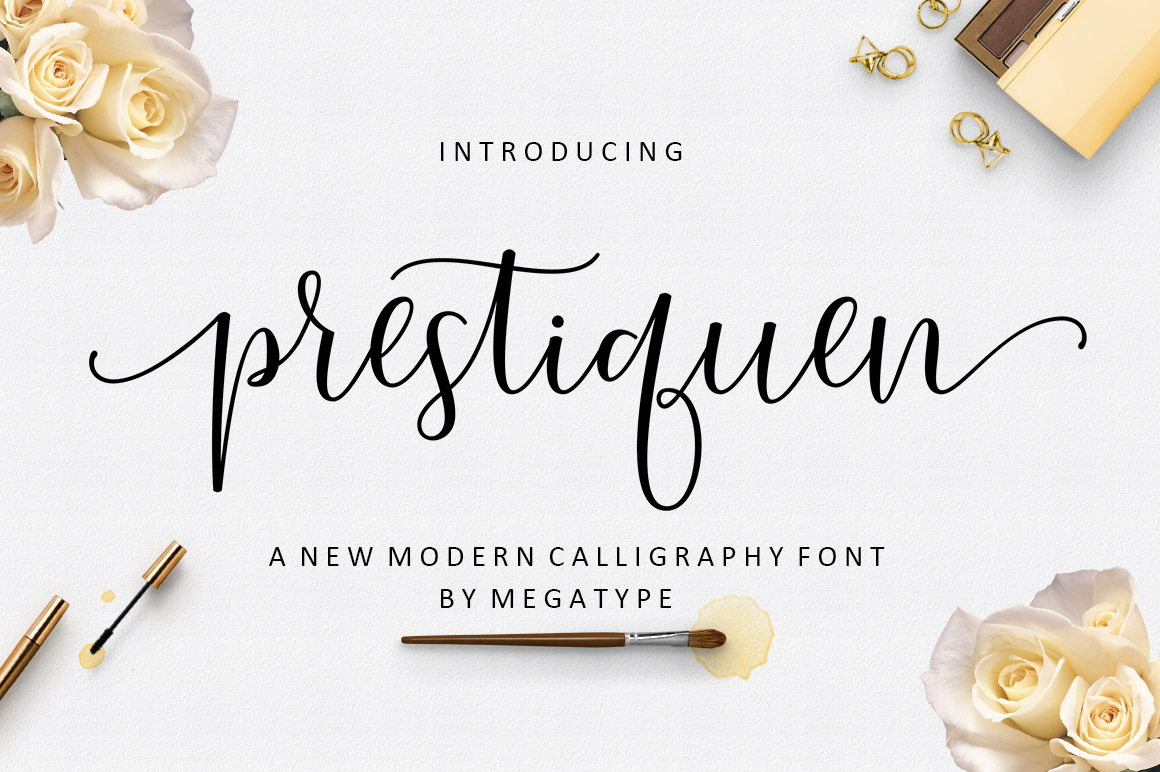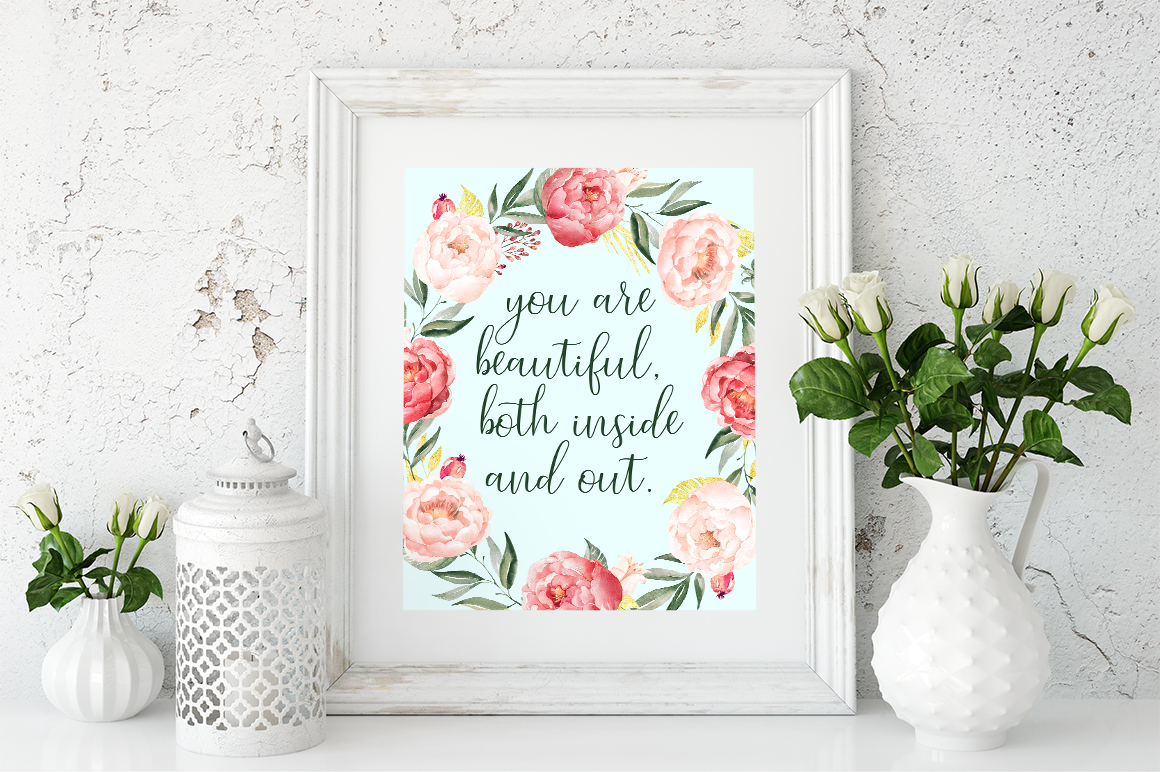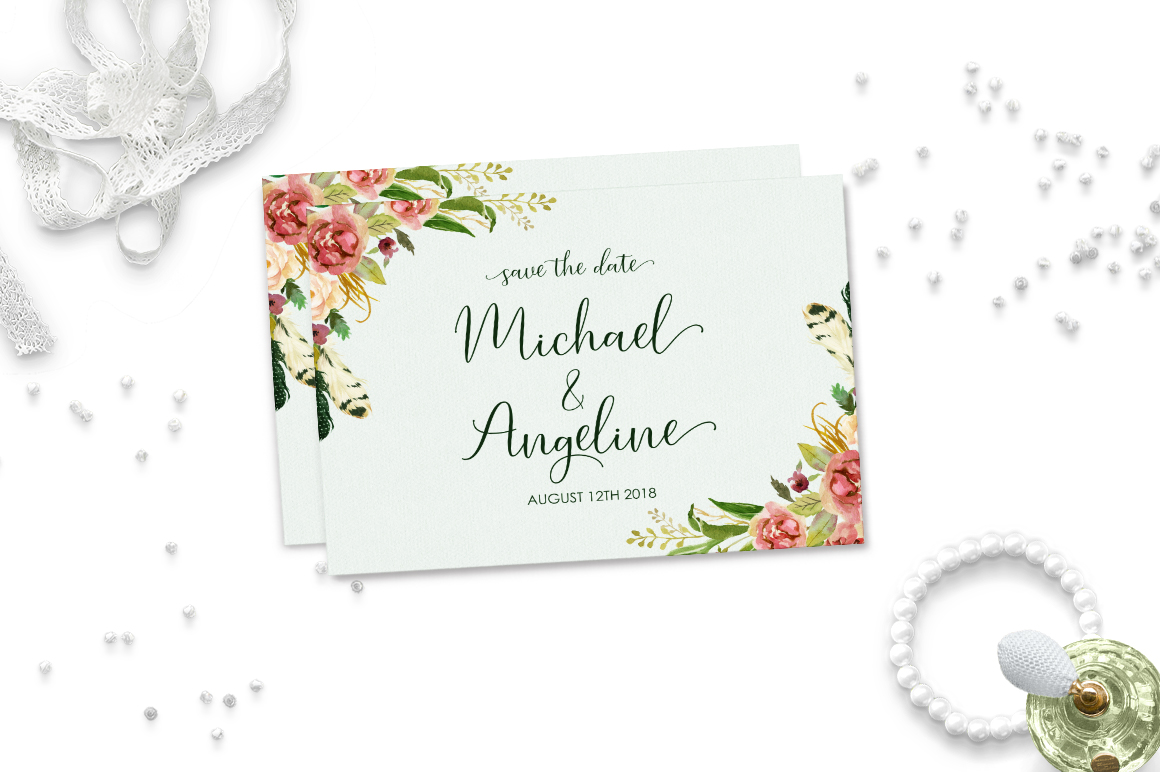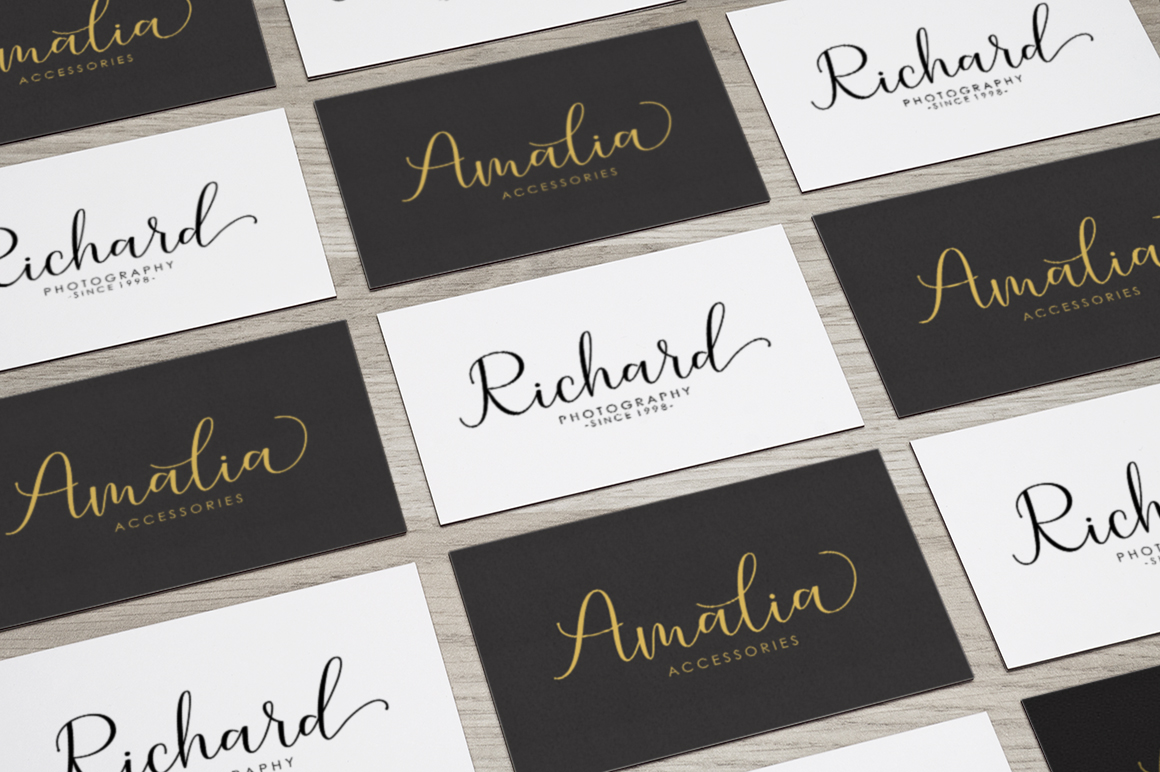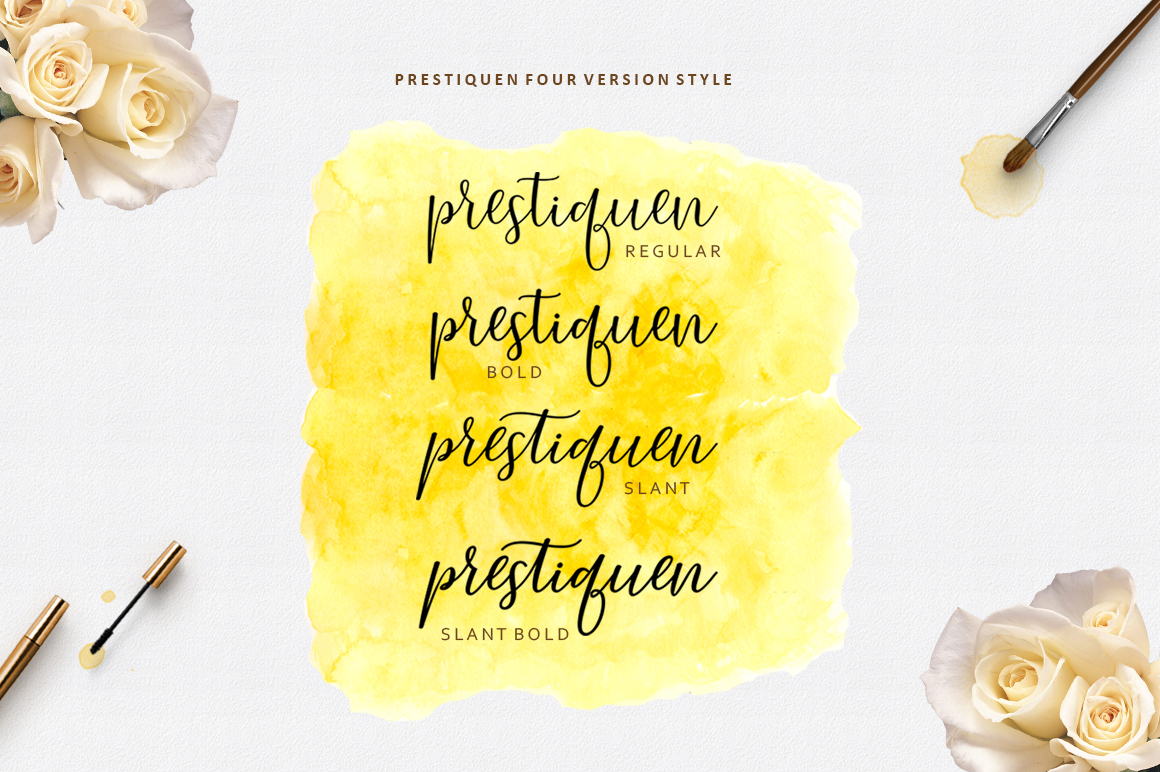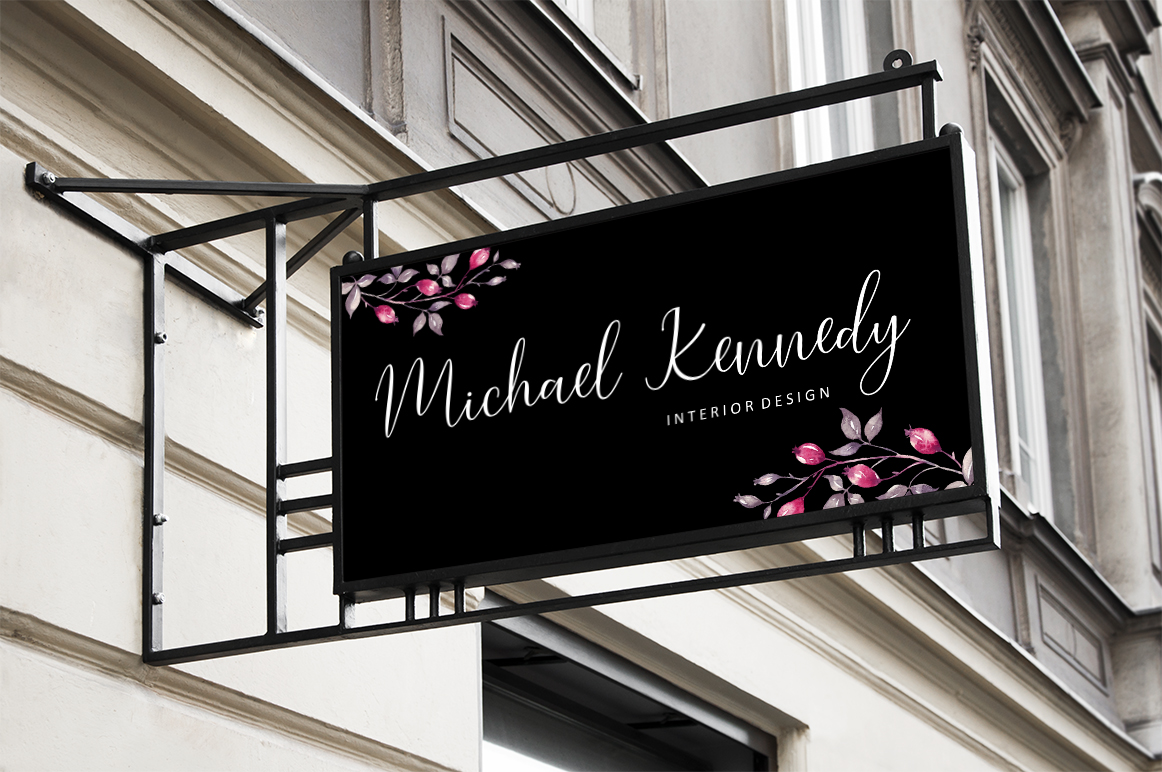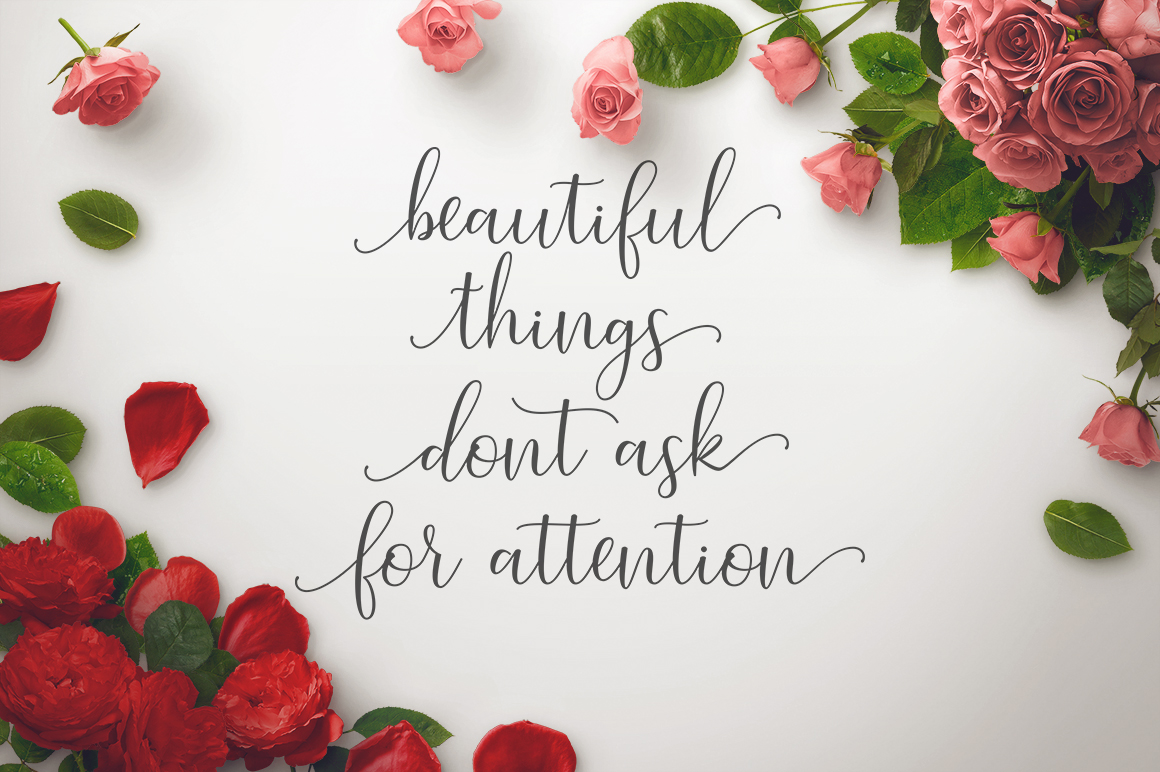
Prestiquen Script Font
About Prestiquen Script Font
Prestiquen Script is a beautiful and modern calligraphy, one that is stunning and flourished. This is a stunning design that dances across your compositions and designs.